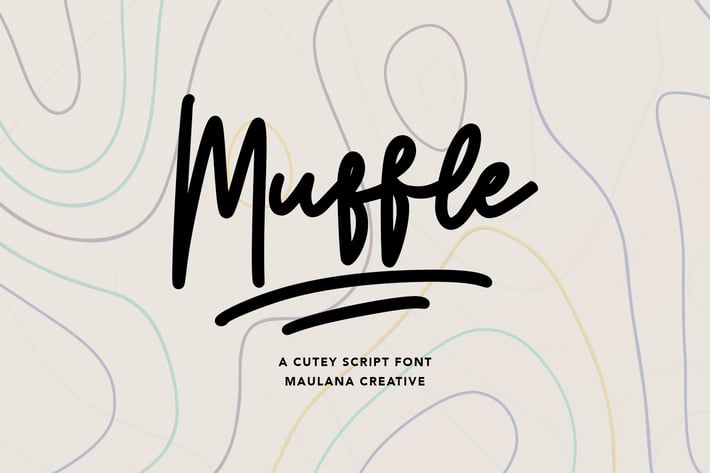
Muffle Cutey Script Font
Give your designs an authentic handcrafted feel. Muffle Cutey Script Font is perfectly suited to stationery, logos and much more.